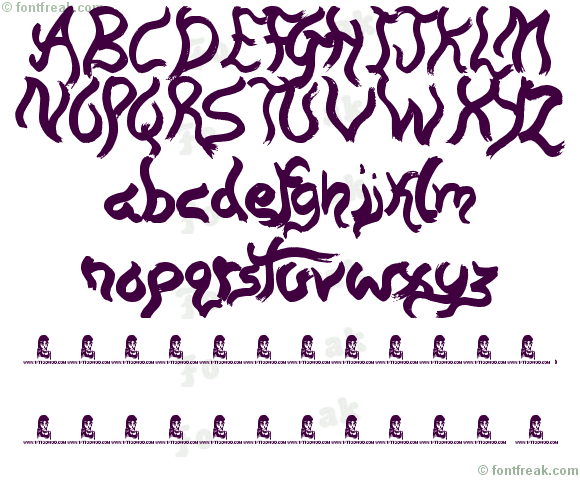
The Boatman
The Boatman font, created by Jonathan S. Harris in 2013, is a striking display font that embodies a handwritten style with an artistic flair. This unique typeface features bold, expressive strokes that mimic the fluidity of brushwork, making it ideal for projects that require a personal touch. The stroke weights vary significantly, creating a dynamic contrast that draws attention. The irregular spacing between letters adds to its organic feel, while the playful decorative elements evoke a sense of creativity and spontaneity.
This font is particularly suitable for a range of applications. For instance, its eye-catching style makes it an excellent choice for wedding invitations, where a touch of elegance is essential. Additionally, The Boatman can be effectively used in movie posters, capturing the viewer's attention and conveying a sense of drama and excitement. Restaurant menus will benefit from its unique character, enhancing the dining experience with an artistic presentation. Content creators will find it useful for social media graphics, where bold typography can help convey messages more effectively.
The target audience for The Boatman includes graphic designers, small business owners, and content creators looking to add a distinctive touch to their work. Whether you’re crafting promotional materials or designing personal projects, this font offers versatility and personality.
What sets The Boatman apart is its ability to blend artistic expression with functional design. The fluid strokes and bold presence create a memorable typographic experience, making it a standout option for anyone seeking to elevate their creative projects. For those interested, The Boatman font free download is available, allowing users to easily incorporate this unique typeface into their designs.